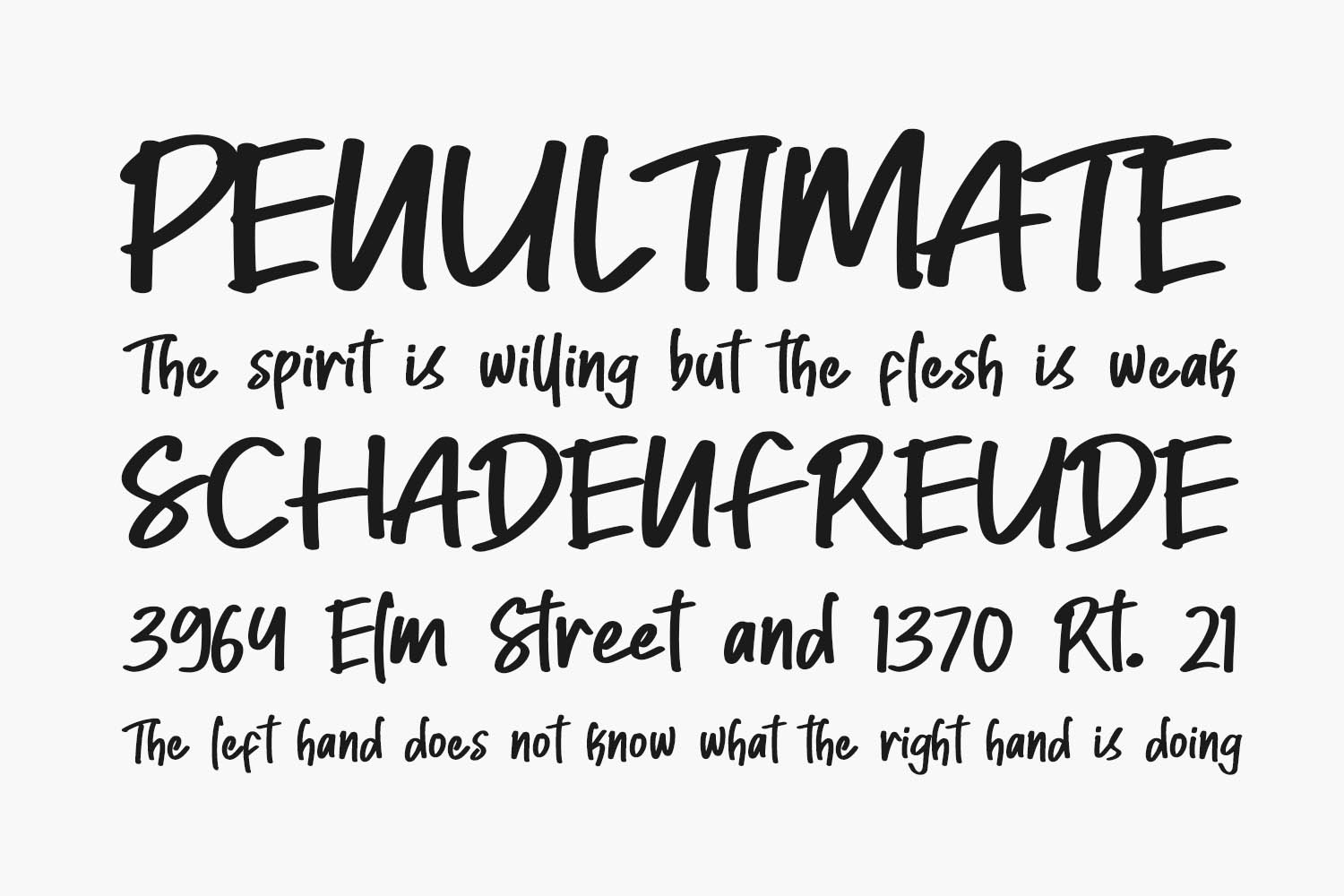
Discover Starlight Free Font, an eye-catching handwritten font that exudes strength, confidence, and dynamism. This bold typeface is sure to infuse your designs with a delightful dose of nostalgic charm. Unleash the full potential of your creativity with the captivating Starlight font today. Starlight Free Font is free for personal use only. Please purchase the full version for commercial use.
Designed by Bandofol Studio